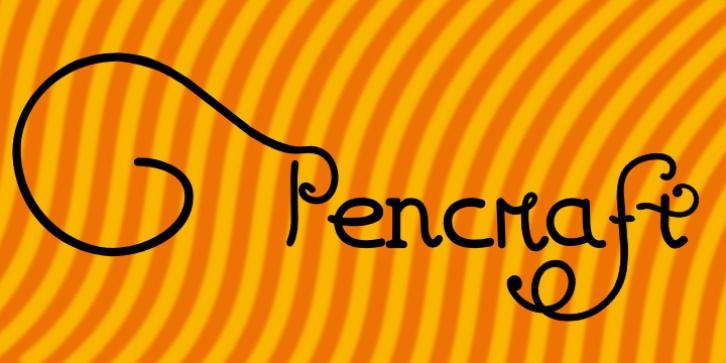
Publisher: Intellecta Design
Pencraft, from Intellecta Design has a mixed source. The capitals were inspired in “Swagger Capitals”, a original design from Carl Stephen Junge, at Barnhart Brothers & Spindler. Carl was an illustrator and poster designer in Chicago in the 1920s and 1930s, who lived from 1880. This font can be found at the 1922 BBS catalog.
The lowercases have an interesting source. Pencraft has a long history in the north-american typography. It was first designed by Hermann Ihlenburg, born in Germany in 1843 where he studied art and worked for several German type foundries. He emigrated to the USA in 1866 and worked for the L. Johnson & Co. foundry, later MacKellar, Smiths & Jordan. Ihlenburg died July 31, 1905 in Philadelphia. Sidney Gaunt, working as a type designer for Barnhart Brothers & Spindler foundry, in Chicago, added in 1914 the Pencraft Oldstyle series (BB&S later ATF). Pencraft, from Intellecta, is a free-interpretation from Pencraft Specials, a ornamental variation (with few lowercase, an incomplete alphabete) from Pencraft Oldstyle series, as displayed in the BBS catalog from 1922. The research and development of this font is work by Chyrllene K, a new, and welcome designer at Intellecta.
In time: the OpenType version of this font has over of 100 alternates letters by your choice. And it contains the complete Latin alphabet, including Central European, Vietnamese, Baltic and Turkish with all diacritic signs and punctuation marks.